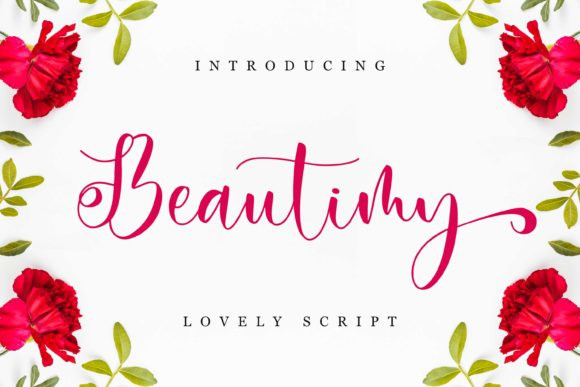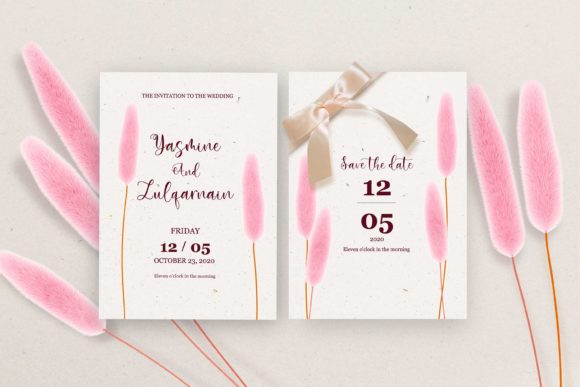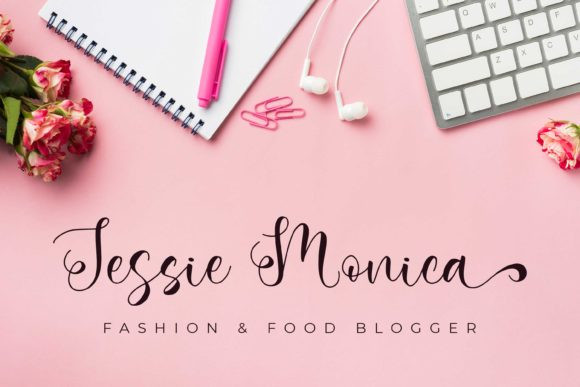
Beautimy Font
Beautimy FontBeautimy feels equally charming and elegant. It looks stunning on wedding invitations, thank you cards, quotes, greeting cards, logos, business cards and every other design which needs a handwritten touch.